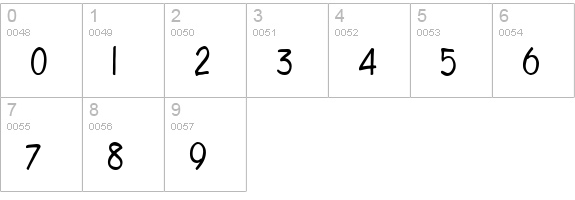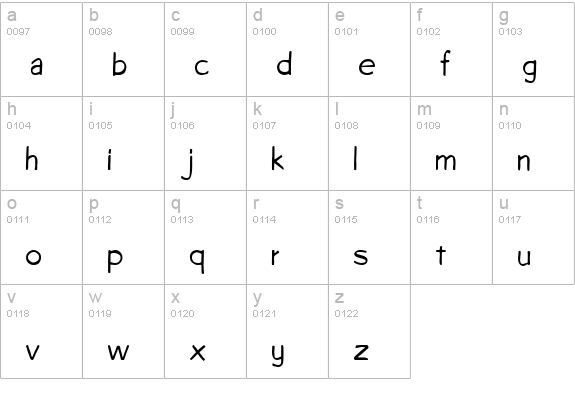
CopybookCondensed Normal Font Details
CopybookCondensed Normal is the standard, neutral variant in the CopybookCondensed typeface family \xE2\x80\x94 well suited to general body text, paragraphs, and standard typographic work.
CopybookCondensed Normal font is a classic and elegant typeface that radiates sophistication and professionalism. Its slim and condensed design makes it perfect for various print and digital projects, from formal invitations to corporate documents. The clean lines and timeless appeal of CopybookCondensed Normal font ensure that your text stands out with clarity and precision. The best part? This exquisite font is available for free download at FontsMarket.com. Whether you are a graphic designer, a business owner, or a creative enthusiast, you can easily access and use CopybookCondensed Normal font to enhance your projects with a touch of refinement and style. Don't miss out on this opportunity to elevate your designs with this versatile and effortlessly chic typeface.